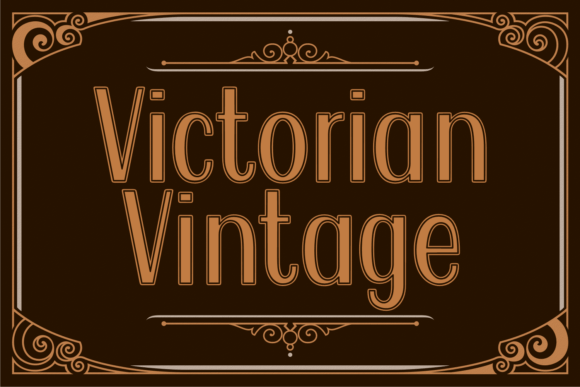
Indulge in the timeless allure of Victorian Vintage, a captivating display font that exudes sophistication and elegance. Its meticulously crafted characters, adorned with delicate outlines, evoke a sense of grandeur and refinement.
Immerse yourself in the meticulously designed curves and graceful lines that define each letterform. Victorian Vintage is a font that transcends the boundaries of time, embodying the essence of vintage charm while maintaining a contemporary appeal.
Whether you're crafting an unforgettable logo, designing captivating posters, or adding a touch of timeless allure to your digital projects, Victorian Vintage promises to elevate your creations to new heights. Its versatility knows no bounds, making it the perfect choice for designers seeking a font that seamlessly adapts to any aesthetic.
Unleash your creativity with Victorian Vintage, a font that whispers tales of bygone eras and inspires designs that leave a lasting impression. Its timeless appeal ensures that your projects will stand the test of time, capturing the hearts and minds of those who behold them.
Embrace the legacy of Victorian Vintage and add a touch of timeless elegance to your design endeavors. With its captivating charm and versatility, this font is the key to unlocking a world of creative possibilities. Experience the allure of Victorian Vintage today and elevate your designs to the realm of the extraordinary!